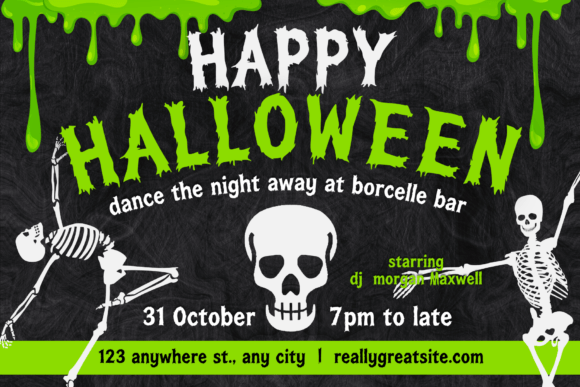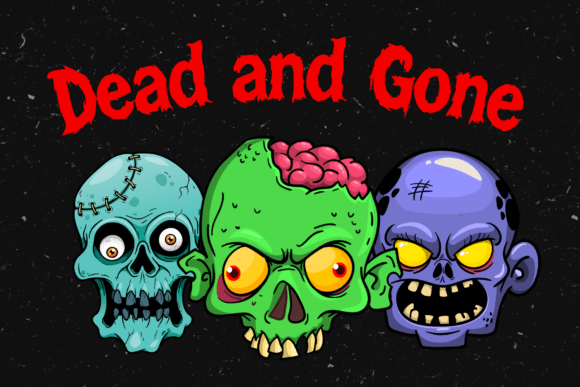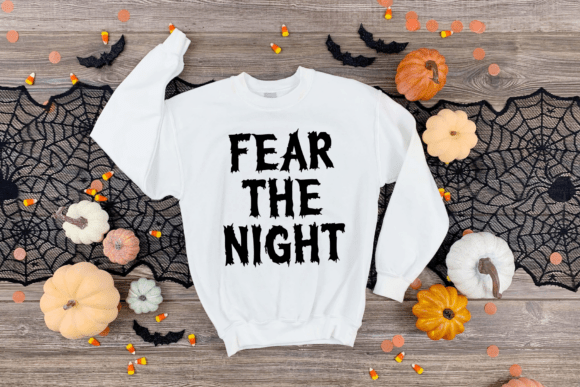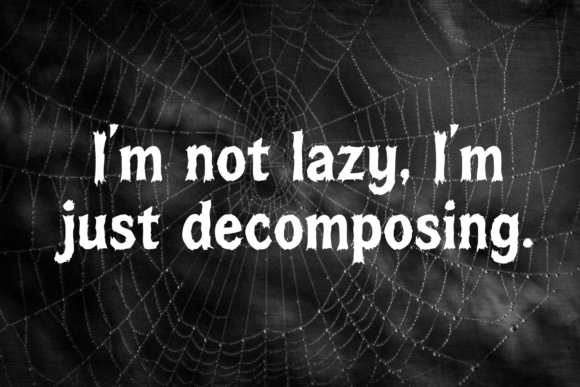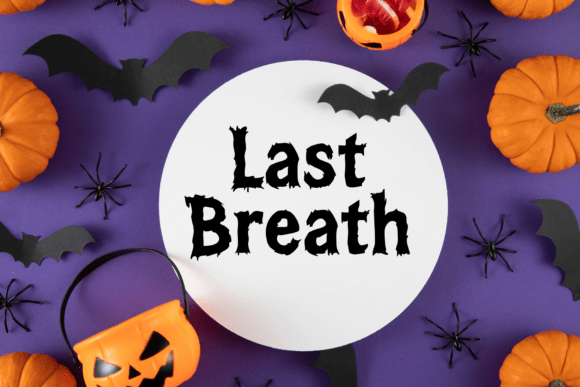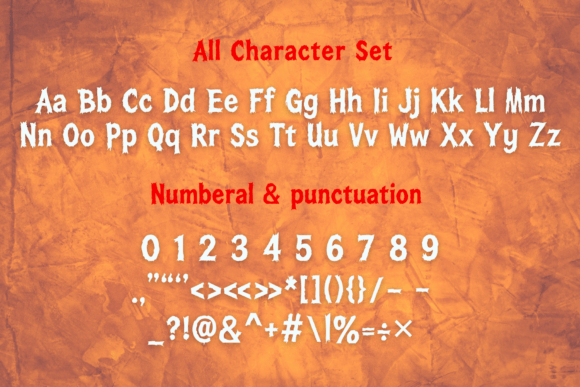
Unleash the Terror: Dark Howl Font – The Ultimate Horror-Inspired Typeface
Are you a designer or crafty enthusiast looking to add a touch of eeriness to your projects? Look no further than the Dark Howl Font, a horror-inspired typeface that will send shivers down your spine. With its jagged edges, uneven strokes, and distressed finish, this font is perfect for creating chilling posters, eerie book covers, haunted house branding, Halloween invitations, and anything that needs a touch of dread.
The Inspiration Behind Dark Howl
Dark Howl Font is a carefully crafted typeface that draws inspiration from the darker corners of the night. Its design is rooted in the aesthetic of horror and the supernatural, making it an ideal choice for projects that require a sense of foreboding or unease. The font’s creator aimed to capture the essence of a haunting howl that echoes through the darkness, hence the name Dark Howl.
Key Features of Dark Howl Font
- Jagged Edges: The font features jagged edges that give it a rough, unrefined look, adding to its horror appeal.
- Uneven Strokes: The uneven strokes in Dark Howl Font contribute to its distressed and eerie feel.
- Distressed Finish: The font’s distressed finish gives it a worn, aged appearance that adds to its haunting charm.
- Versatility: Dark Howl Font is versatile and can be used for a variety of projects, from digital designs to print materials.
Use Cases for Dark Howl Font
Dark Howl Font is perfect for a wide range of projects that require a touch of horror or eeriness. Here are some use cases:
- Chilling Posters: Create eye-catching posters for horror movies, haunted houses, or Halloween events.
- Eerie Book Covers: Add a touch of dread to your book covers, especially for horror, thriller, or mystery novels.
- Haunted House Branding: Use Dark Howl Font to create a spooky brand identity for haunted houses, escape rooms, or horror-themed attractions.
- Halloween Invitations: Design creepy invitations for Halloween parties or events.
- Horror-Themed Merchandise: Create merchandise such as t-shirts, mugs, or stickers with a horror-themed design.
Tips for Using Dark Howl Font
To get the most out of Dark Howl Font, here are some tips:
- Experiment with Colors: Try pairing the font with bold, vibrant colors to create a striking contrast.
- Play with Sizes: Use different font sizes to create a sense of hierarchy and emphasize certain words or phrases.
- Add Effects: Experiment with adding effects such as shadows, textures, or gradients to enhance the font’s eerie feel.
- Mix and Match: Combine Dark Howl Font with other fonts to create a unique and interesting typography.
Dark Howl Font is a powerful and versatile typeface that can add a touch of horror and eeriness to your designs. With its jagged edges, uneven strokes, and distressed finish, this font is perfect for designers and crafty enthusiasts looking to create chilling posters, eerie book covers, haunted house branding, Halloween invitations, and more. So, unleash the terror and get creative with Dark Howl Font!